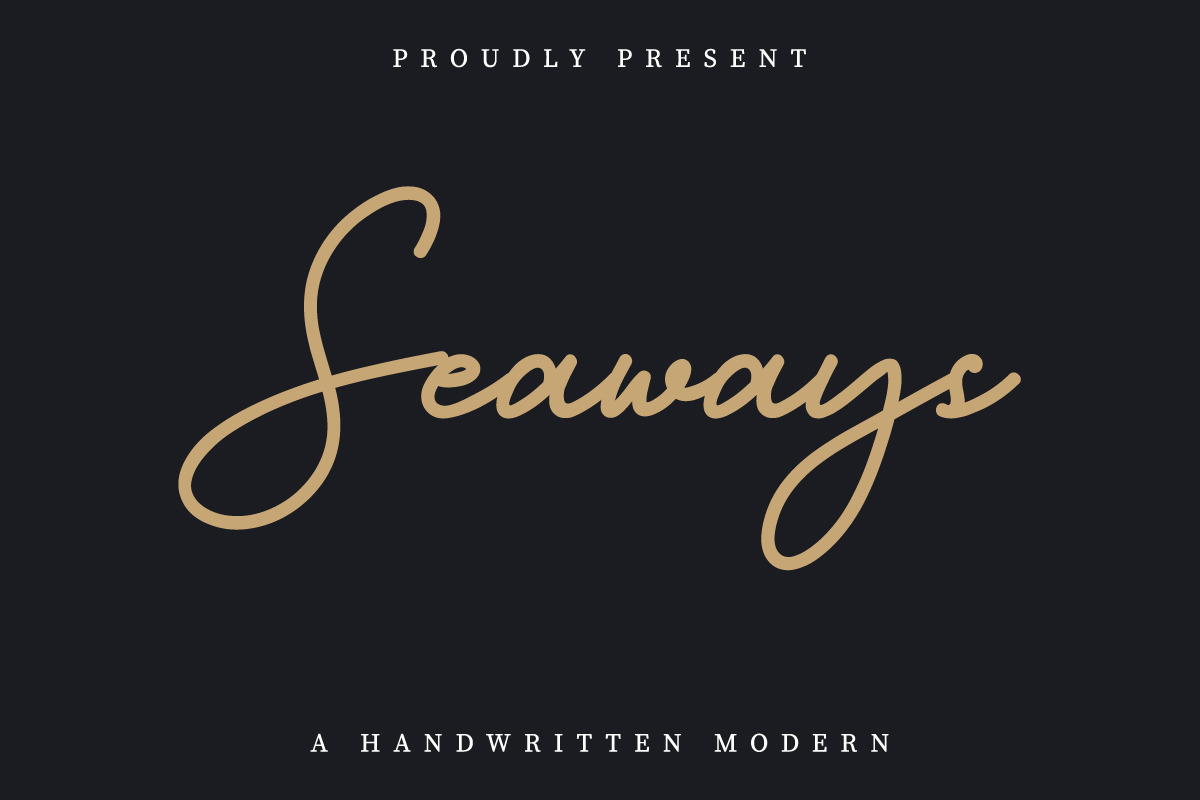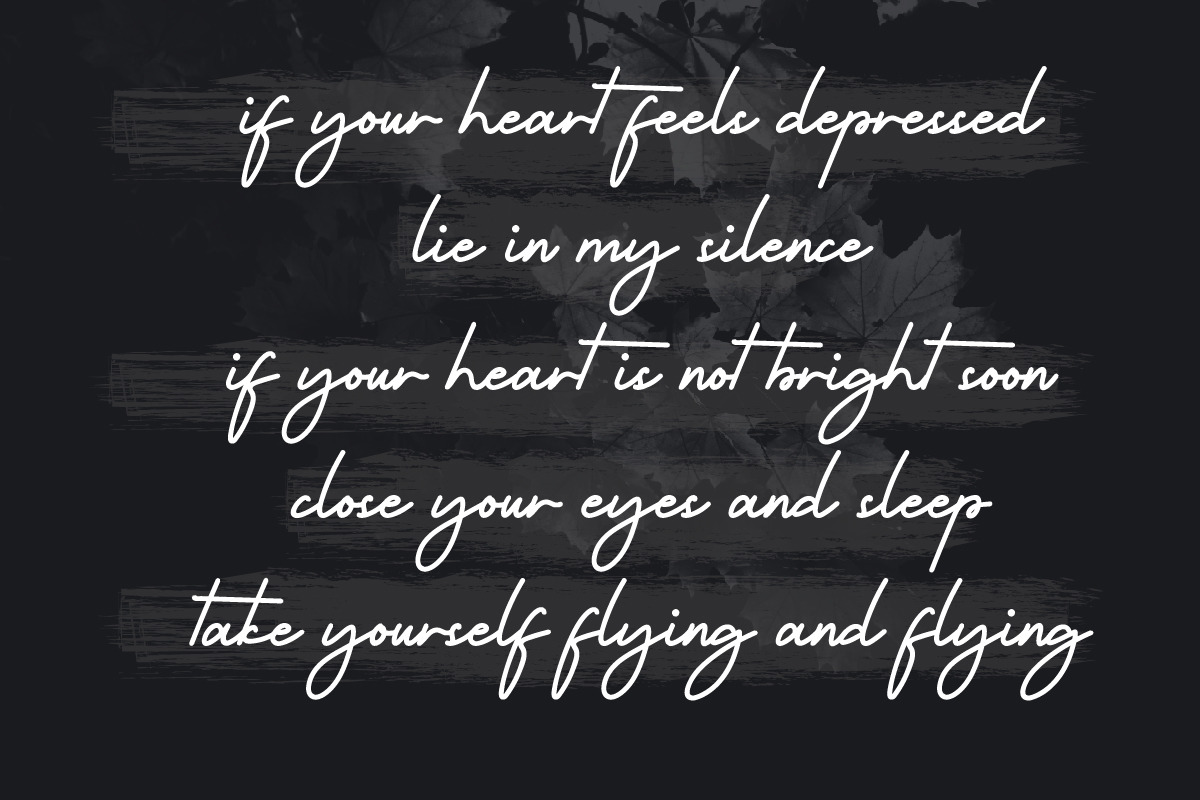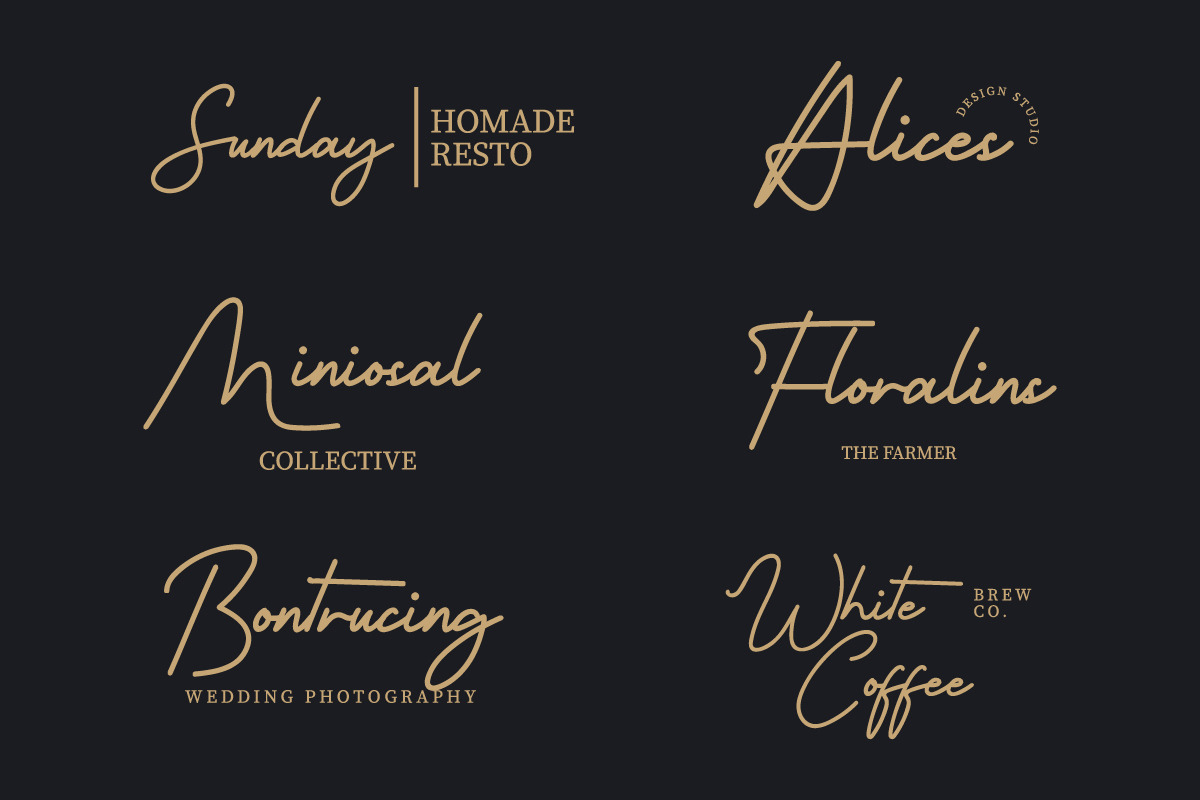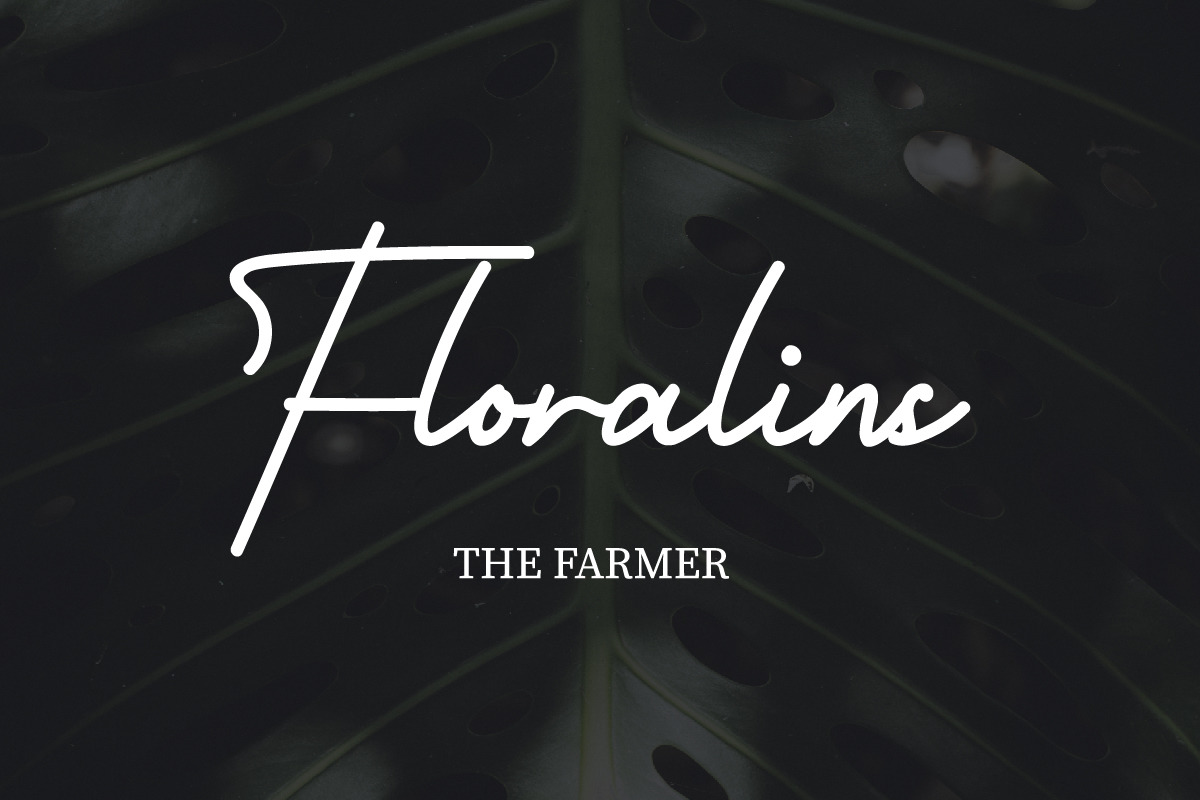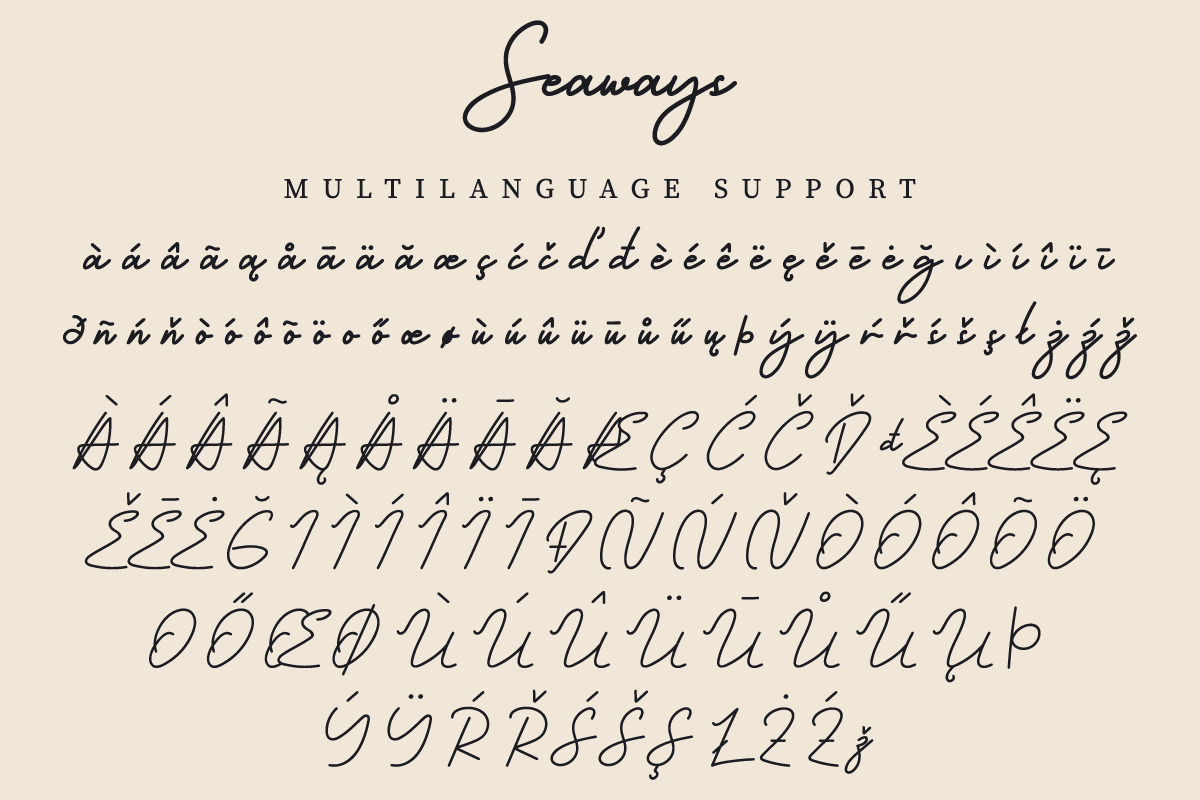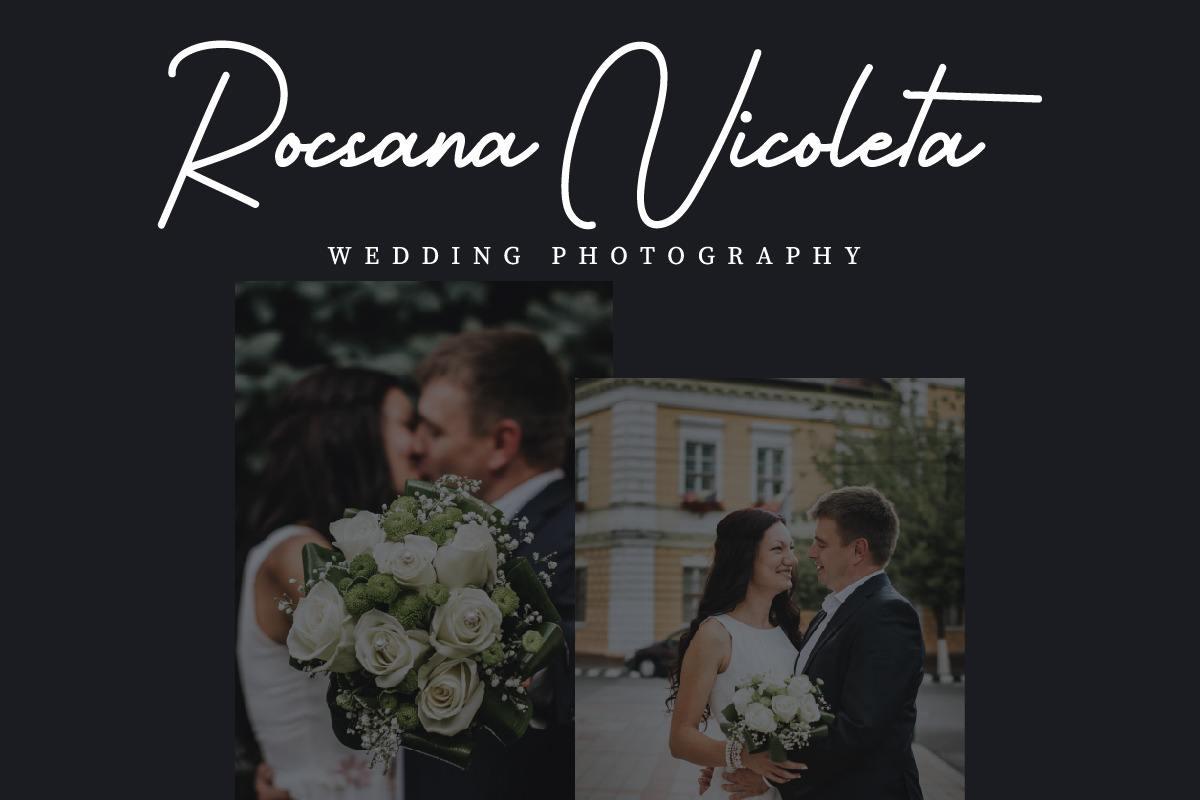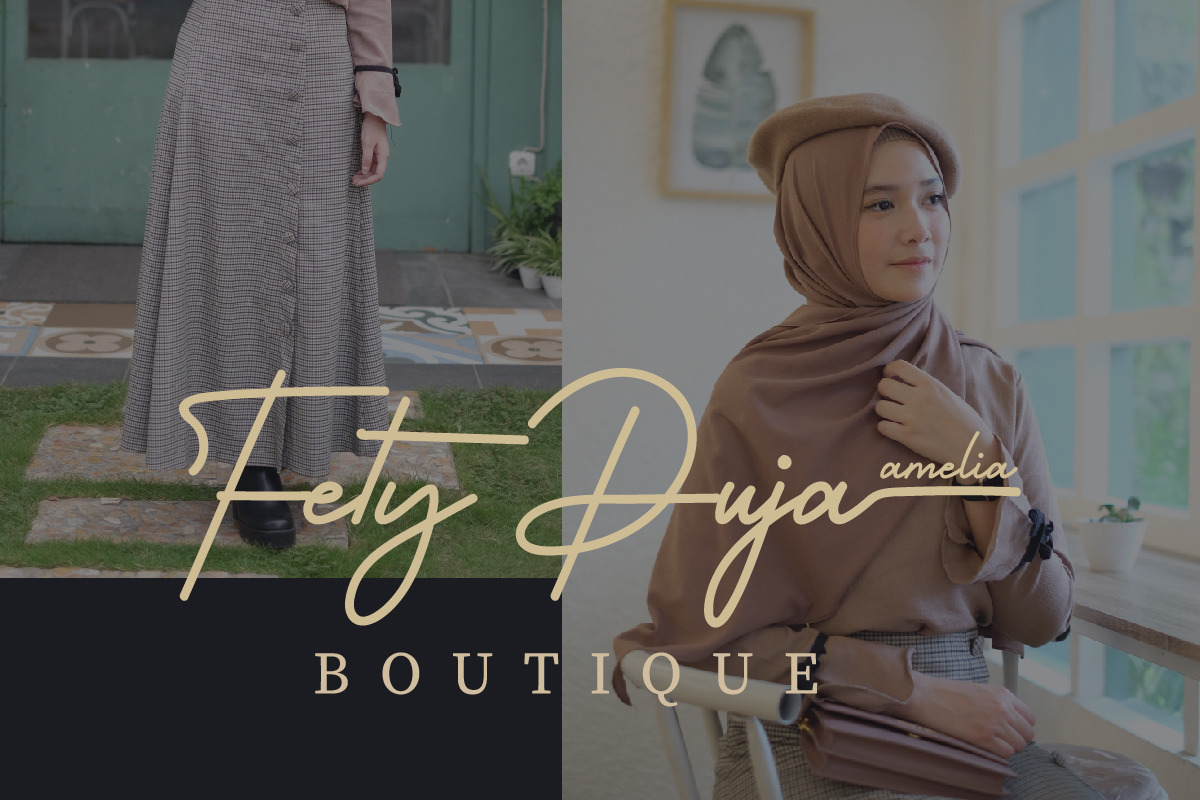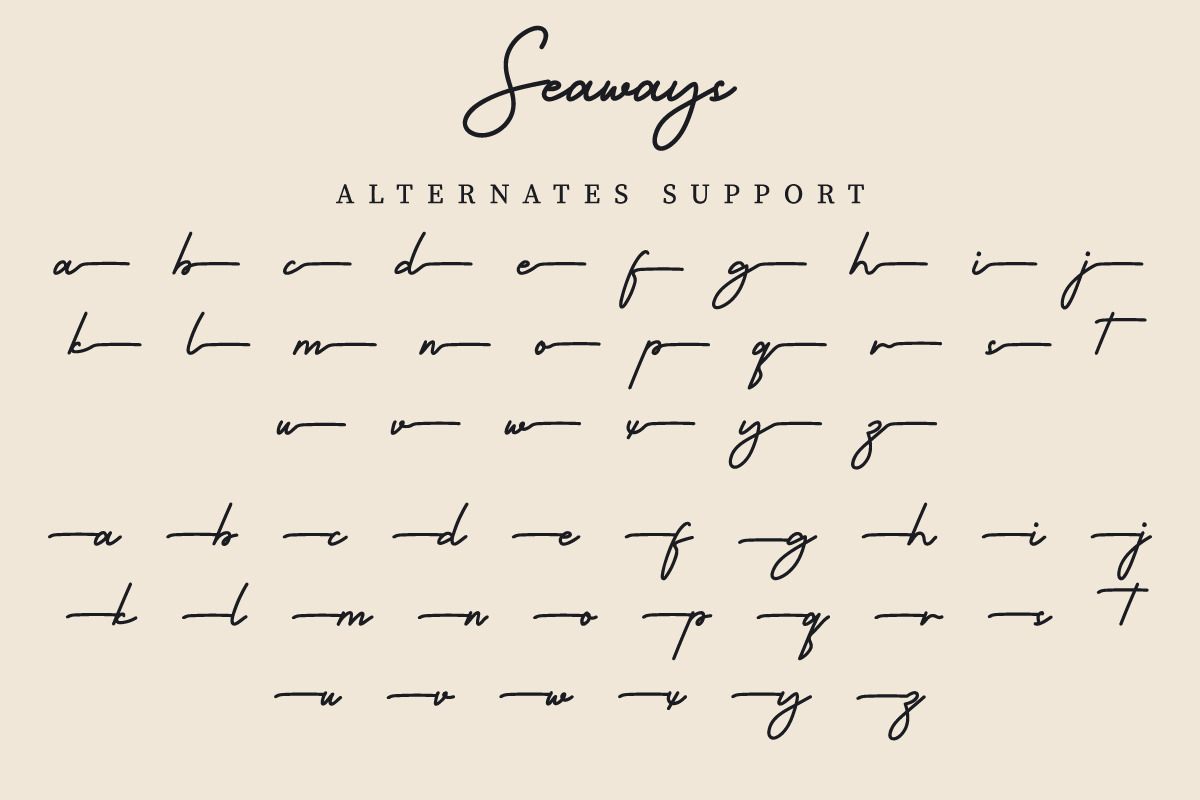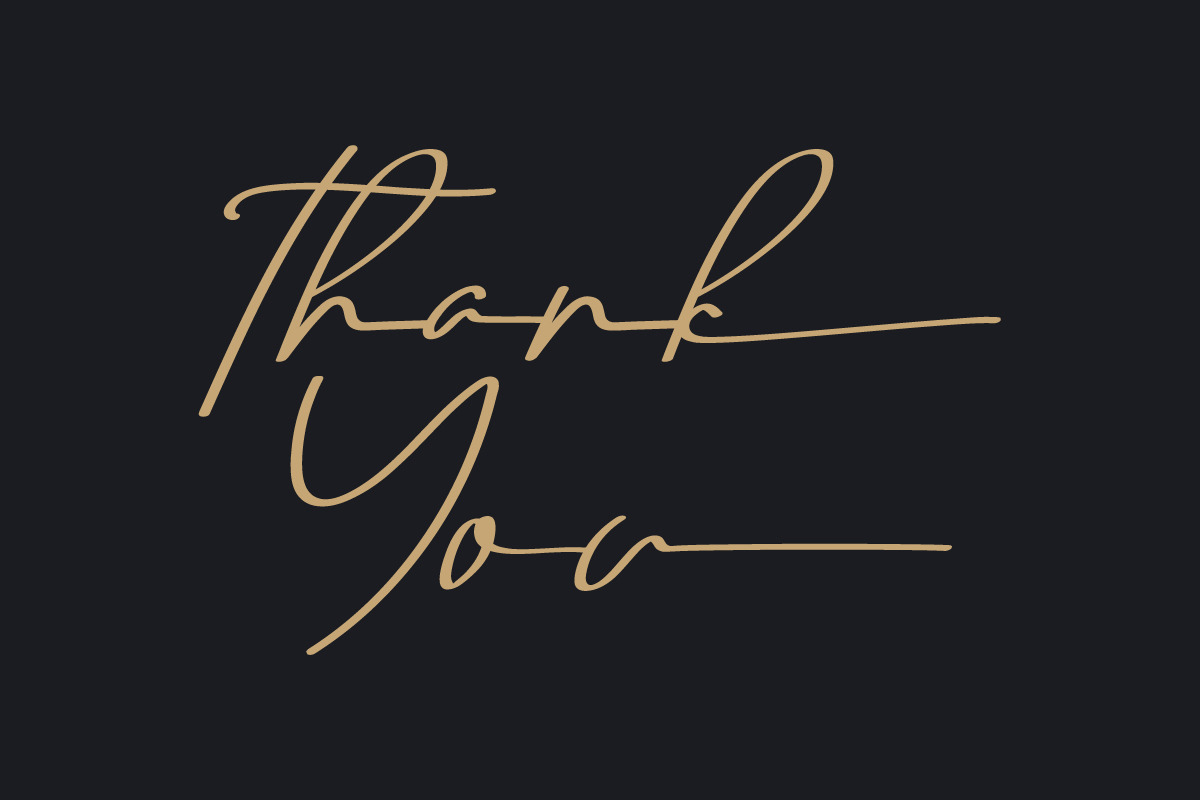
Seaways Script Font
Seaways Script Font is a signature font, handcrafted from our Studio here in, Indonesia. The artists/designers of this beautiful tyeface is Saila and Sarah Suci.
Seaways Script Font is an exclusive handwritten script typeface with signature style. This font has a stunning characters set, perfectly managed with well spaced and kerning. The theme style of this font will elegant, vintage, stylish, sophisticated and classic signature style. Nothing else like Seaways Script Font.
Seaways Script Font will be great for any projects (with exntended license) including : branding, logo, stationery, business card, signage, flyer, brochure etc. Almost all industries will be match for this typeface: wedding, events, real estate, architect, law firm, florist, gardening, makeup artist, travel, hotel, musician etc